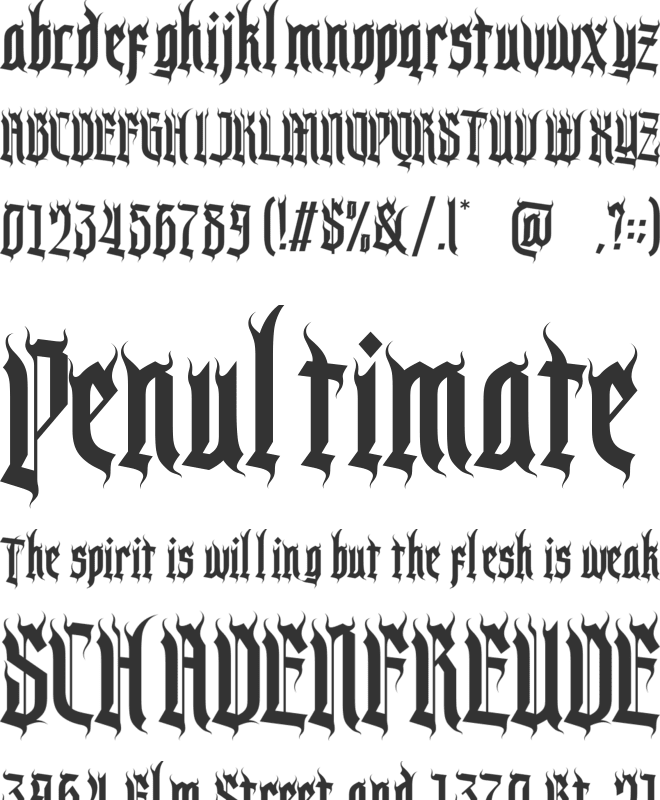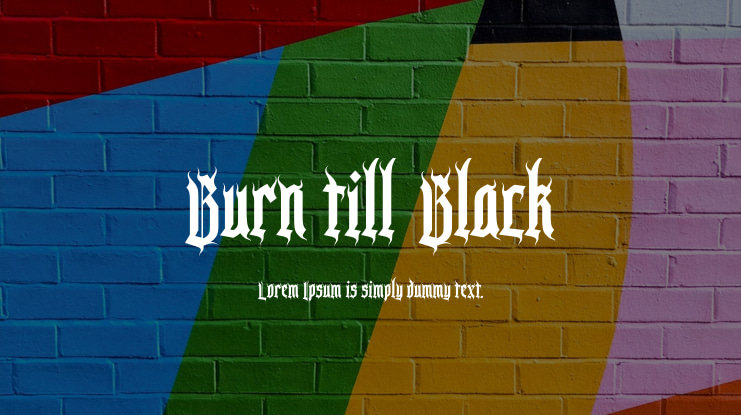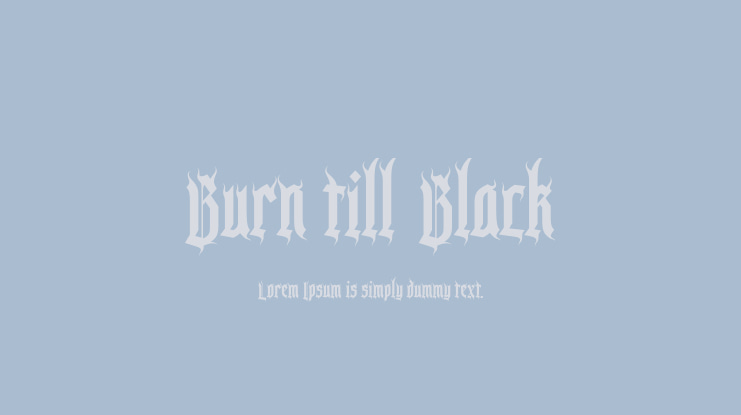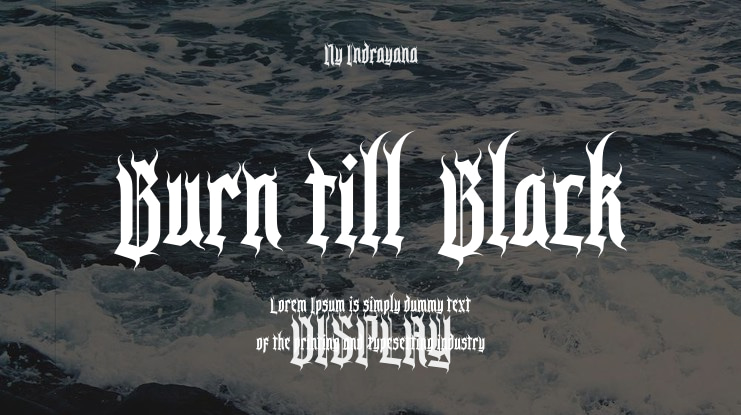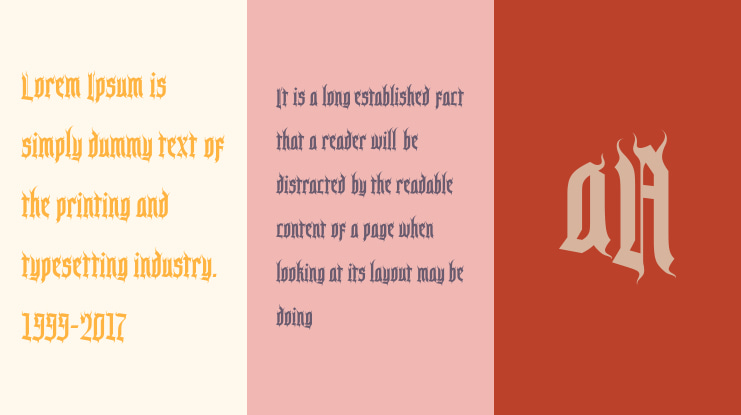
Burn till Black Font
Ny Indrayana
Introducing “Burnt Till Black” – a font that embodies the fiery spirit of metal music and the timeless allure of blackletter typography. Designed for those who dare to stand out, this font exudes raw energy and power, making it the perfect choice for album covers, band logos, posters, and more.